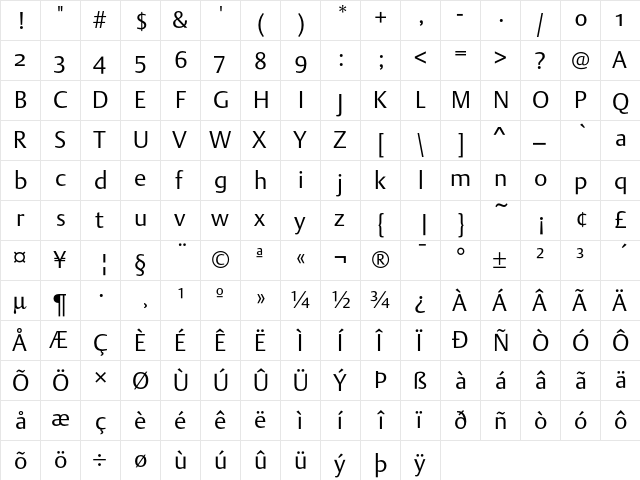
DTL Argo ST Light
Design Context for DTL Argo Typeface
DTL Argo offers clean, dependable letterforms without strong stylistic allegiance, making it a practical choice for designers who need flexibility. Its slender proportions lend an understated elegance to any composition.
Pro Tip: Use DTL Argo in both headline and body roles to test its range before committing to a single application.